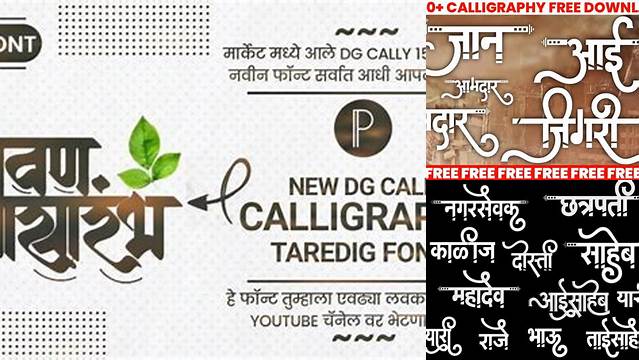
Free DG Font 036 Calligraphy Marathi Download & Design Guide
Hey guys! Are you looking for a cool Marathi font with a touch of calligraphy? You're in the right place! This article is all about the DG Font 036 Calligraphy Marathi, a fantastic font that you can download for free and use in a bunch of creative projects. We'll dive deep into where you can get it, how to install it, and some awesome ways to use it. Get ready to spice up your designs with this beautiful font! Let's get started!
DG Font 036 Calligraphy in Marathi: Design Ideas
Once you've successfully installed the DG Font 036 Calligraphy Marathi, it's time to get creative! There are tons of ways you can incorporate this beautiful font into your designs. It’s perfect for creating eye-catching headlines, elegant invitations, and sophisticated logos. Consider using it for wedding invitations, festival announcements, or cultural event posters. The calligraphy style adds a touch of elegance and cultural significance to your designs. Use it for Marathi quotes, poems, or song lyrics to make your creations more expressive. Try pairing it with modern sans-serif fonts for a balanced look. You can use it for social media posts, creating engaging graphics for platforms like Instagram, Facebook, or Twitter. The font is ideal for creating visually appealing text overlays on images. Experiment with different colors, sizes, and effects. You can add shadows, glows, or gradients to enhance the font's visual appeal. Think about using it in traditional Indian art projects, where calligraphy is often a core element. Use it to create beautiful nameplates or personalized gifts. The possibilities are endless. Remember to experiment with different design techniques. Practice using the font in different contexts to get a feel for how it works. This will help you develop your own unique design style. Try different color palettes, layouts, and compositions to create visually striking artwork. Have fun with it! The goal is to create something beautiful and impactful.
Exploring Different Uses of the DG Font 036 Calligraphy Marathi
Ready to get creative? The DG Font 036 Calligraphy Marathi opens up a world of design possibilities. This font is incredibly versatile. Consider using it for creating unique greeting cards. Its elegant style adds a personal touch. Design invitations for weddings, parties, or cultural events. The calligraphic flair gives a special feel. Use it in digital art and graphic design projects to elevate your visuals. Create logos for businesses or personal branding, giving them a distinctive look. Design social media posts to make your content stand out on platforms like Instagram or Facebook. Make visually appealing posters and flyers. Use it for designing book covers or creating chapter headings. The possibilities are extensive! You can also use the font to create beautiful quotes and inspirational messages. Experiment with combining it with other fonts. Mixing the calligraphy with modern sans-serif fonts can create a balanced design. Make sure you understand the license of the font, whether it's for personal or commercial use. Always respect the terms of the creator. Using the font in different projects can help you discover new design techniques. So, start exploring and let your creativity flow. The goal is to have fun while using the font. Remember to test your designs on different devices and platforms. This will help you ensure they look great everywhere. Start creating awesome designs today!
Creating Stunning Marathi Wedding Invitations with DG Font 036
DG Font 036 Calligraphy Marathi is the perfect choice for crafting beautiful Marathi wedding invitations. The elegant calligraphy style adds a traditional and personal touch to these important announcements. Start by designing the layout, and consider using the font for the names of the bride and groom. Use it for important details like the wedding date, time, and venue to make them stand out. Pair the calligraphy font with a complementary sans-serif font for body text. Ensure all details are legible. Choose a color palette that reflects the wedding's theme. Traditional colors, such as red, gold, and cream, pair well with the font. Design the invitation considering the cultural significance of a Marathi wedding. You can incorporate traditional motifs. Customize the invitation's size and format to suit your needs. Use a high-resolution design to ensure the invitation looks professional. Before printing, proofread the invitation carefully. Check for any errors in spelling or formatting. When designing the invitation, ensure that the font is used in a way that highlights important elements. Experiment with different font sizes. Test different layouts to see what looks best. Using high-quality paper stock can elevate the invitation. Consider using textured paper. Make sure the final design complements the overall wedding theme. Create a cohesive look that reflects the couple's style and personality. With these tips, you can design beautiful Marathi wedding invitations. The font will bring a touch of elegance. Your guests will be impressed.
Designing Eye-Catching Logos with DG Font 036
Want to create a logo that stands out? The DG Font 036 Calligraphy Marathi can be a powerful tool in logo design. The calligraphy style adds a unique and artistic flair. When designing a logo, focus on the brand's personality. The font can convey sophistication, tradition, or creativity. Start by sketching different logo concepts. Experiment with the font in various layouts. Use the font for the brand name or initials. The logo should be memorable. Pair the font with simpler fonts to avoid visual clutter. Choose colors that reflect the brand’s identity. Make sure the logo is versatile, and it works well in different sizes. Use vector graphics to ensure it scales without losing quality. Before finalizing, get feedback from others. Consider the target audience when designing the logo. Ensure the logo is easy to read. The logo should be recognizable. Make sure the design is unique and not similar to other logos. Maintain a balance between the calligraphy font and other design elements. Use the logo in various mockups. Check how it looks on different products. Consider the logo's overall message. Make sure it aligns with the brand's values. With the right approach, DG Font 036 Calligraphy Marathi can help create a logo that is both beautiful and effective. The logo will leave a lasting impression on your audience.
Using DG Font 036 in Social Media Graphics
Social media is all about grabbing attention. The DG Font 036 Calligraphy Marathi is a great tool for making your social media graphics pop. Use the font for creating eye-catching headlines on platforms like Instagram, Facebook, and Twitter. Create quote graphics. Add a touch of elegance to your posts. This font is perfect for announcements, promotions, or event details. Experiment with different color schemes to make your graphics visually appealing. Use high-quality images and backgrounds. Pair the font with other fonts to create visually balanced designs. When using the font, make sure it’s easy to read on small screens. Keep the design simple and uncluttered. Use the font for creating aesthetically pleasing text overlays. Ensure your graphics align with your brand's style and personality. Use relevant hashtags to boost visibility. Create templates to maintain consistency in your social media content. Don’t be afraid to experiment with different designs and layouts. Regularly update your graphics to keep your content fresh and engaging. Use the font for creating motivational quotes. Your followers will find these posts inspiring. Create visually striking social media graphics. The font is a valuable tool for engaging your audience.